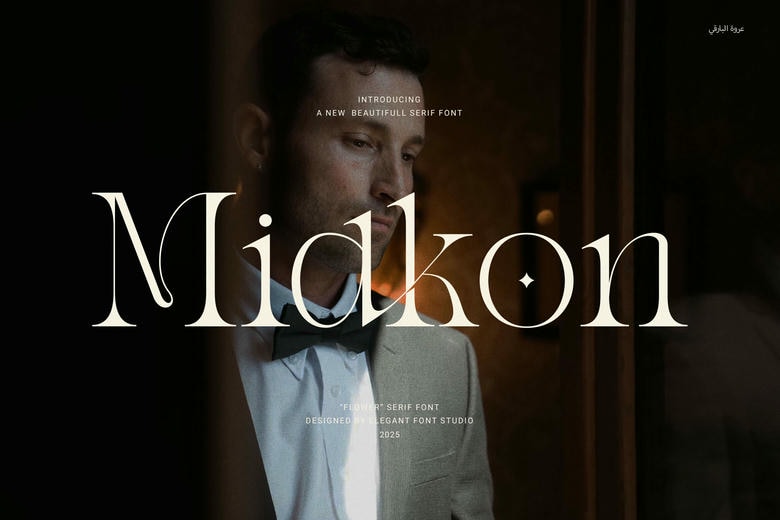
Midkon Font
Midkon is a modern classy serif typeface that is designed to present your brand with a professional look. This typeface has good proportion and classy ligatures, which makes it aesthetically pleasant and as well as useful in all high-quality design work.
Midkon was developed as a typeface that would suit designers and agencies, as well as companies whose visuals should bring the sense of polished, high-end, and long-standing. It works perfectly in print and online environments, which makes it a very versatile font when it comes to creating a boutique brand, luxurious packaging and printing schemes, editorial layouts and luxurious websites.
The flowing contrast, well-shapes and proportional spacing makes for a high readability and the beautiful ligatures make the words personal yet formal at the same time. This is why Midkon is ideal in logos, headlines and branding materials the require a bold and discreet visual identity.
Midkon Serif Font